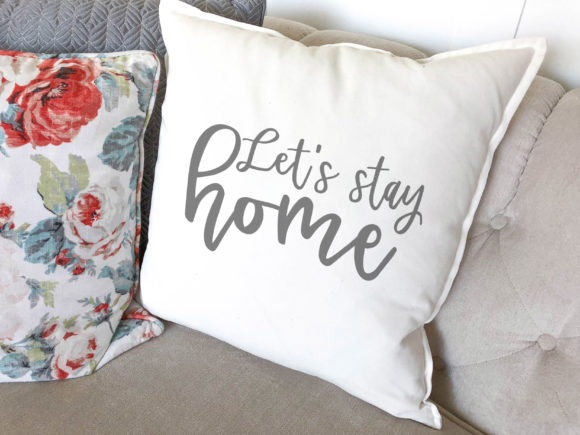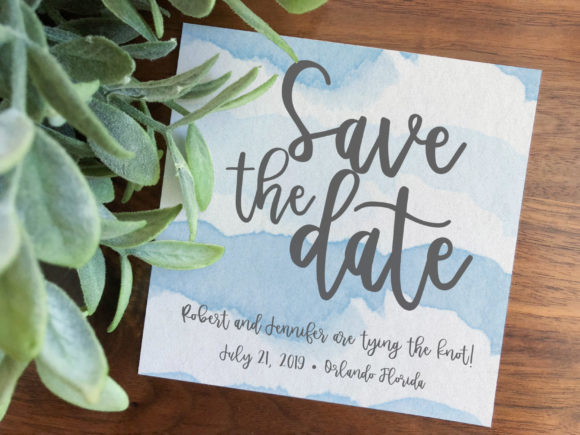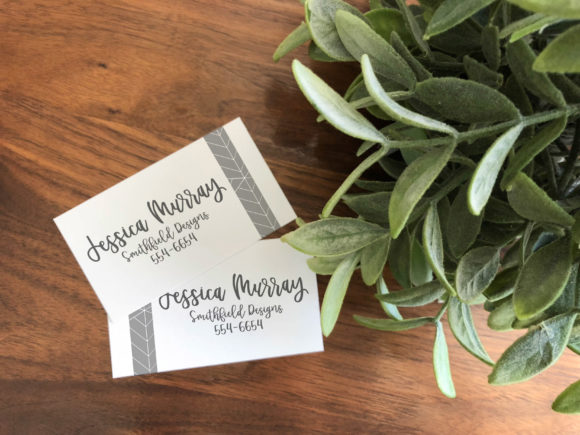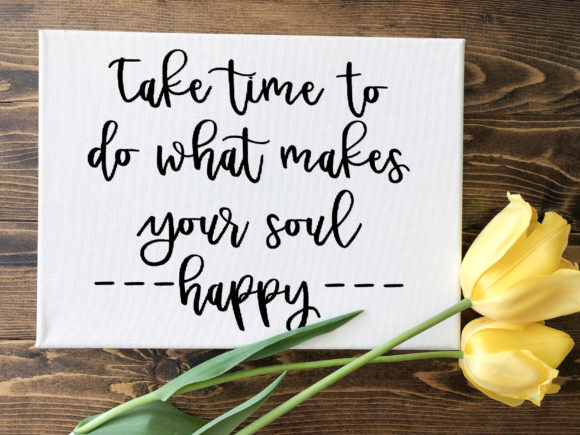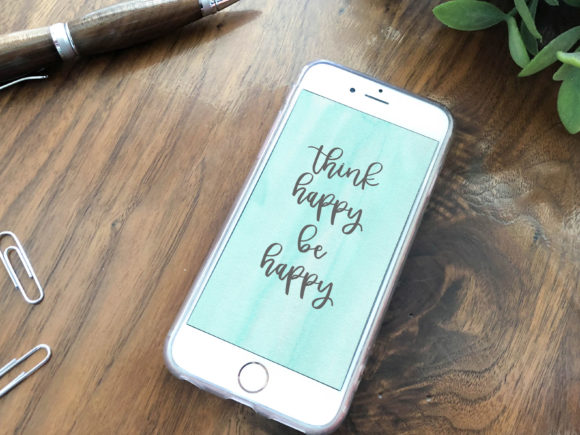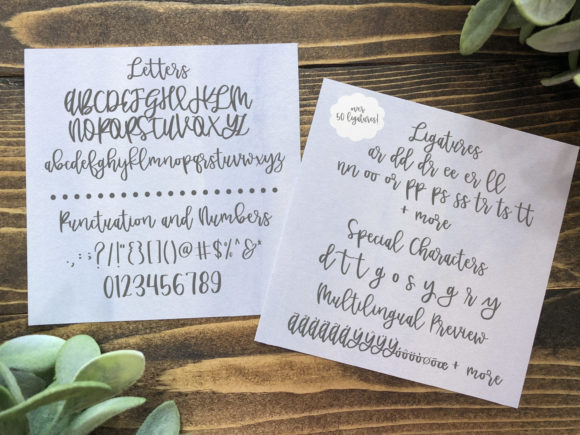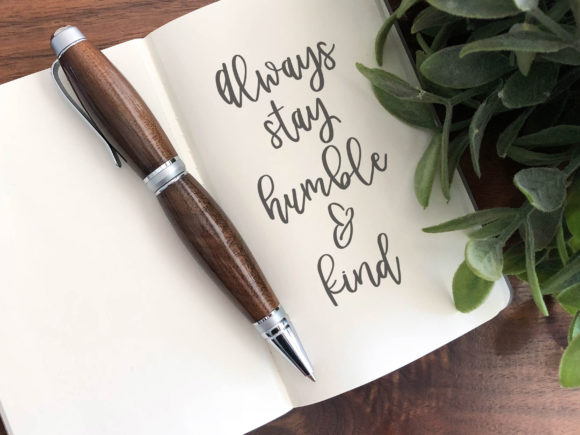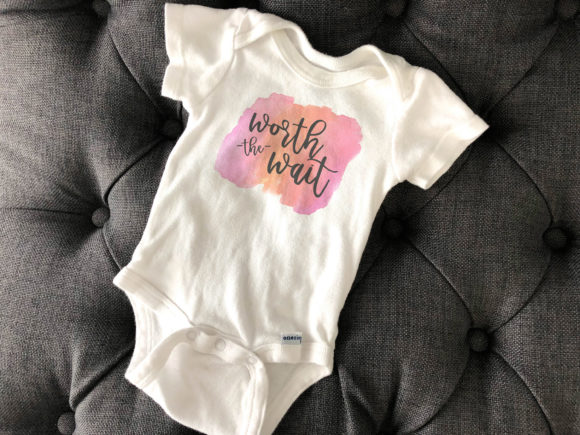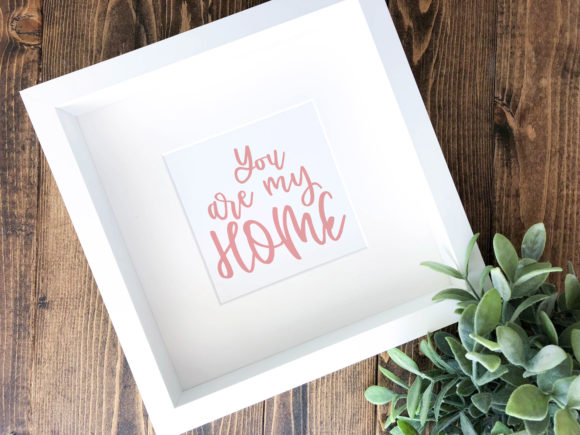
Affinity Grove Font
About Affinity Grove Font
Affinity Grove script is a signature font that contains a variety of ligatures, stylistic alternates, and end/initial characters to easily add accents to your designs.